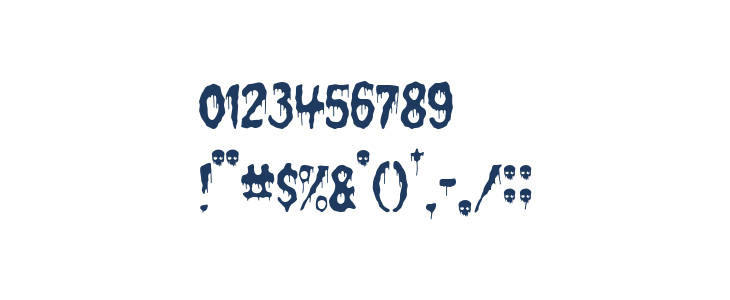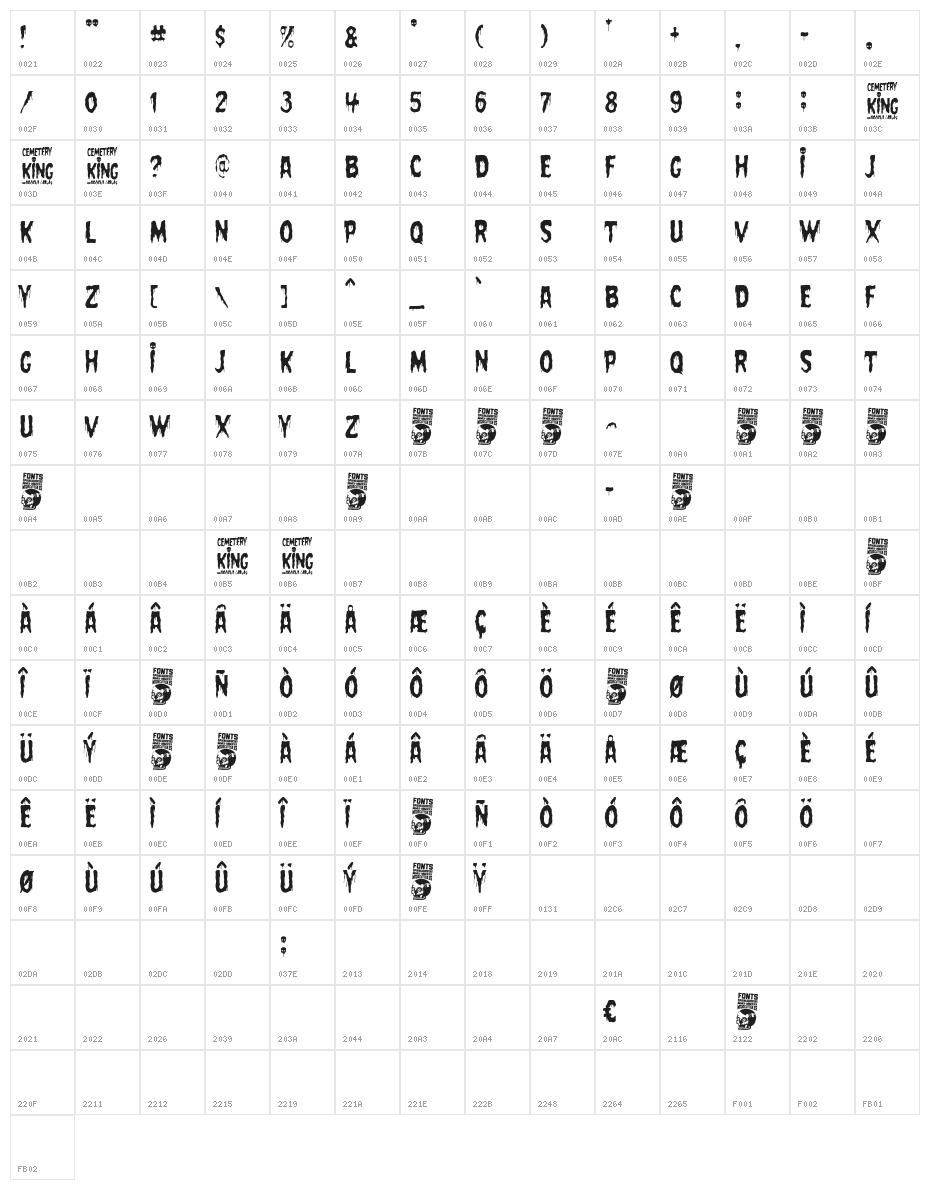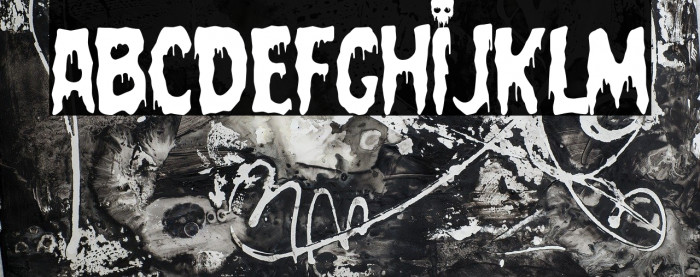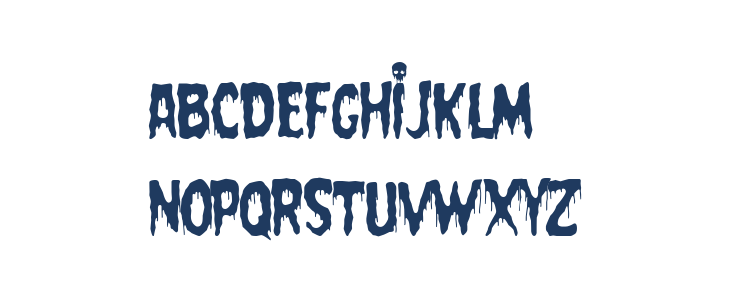
Cemetery King Font
Cemetery King Description
This font features a spooky, dripping design that evokes a sense of horror and mystery. The letters appear as if they are melting or oozing, with irregular edges and a bold, impactful presence. The style is reminiscent of classic horror movie posters, making it ideal for themes related to Halloween or anything eerie and supernatural. The uppercase and lowercase letters maintain a consistent dripping effect, while the numbers and special characters follow suit, adding to the cohesive, chilling aesthetic.
Proposed ProjectsIdeal for Halloween event posters, horror movie titles, haunted house flyers, and spooky-themed merchandise.